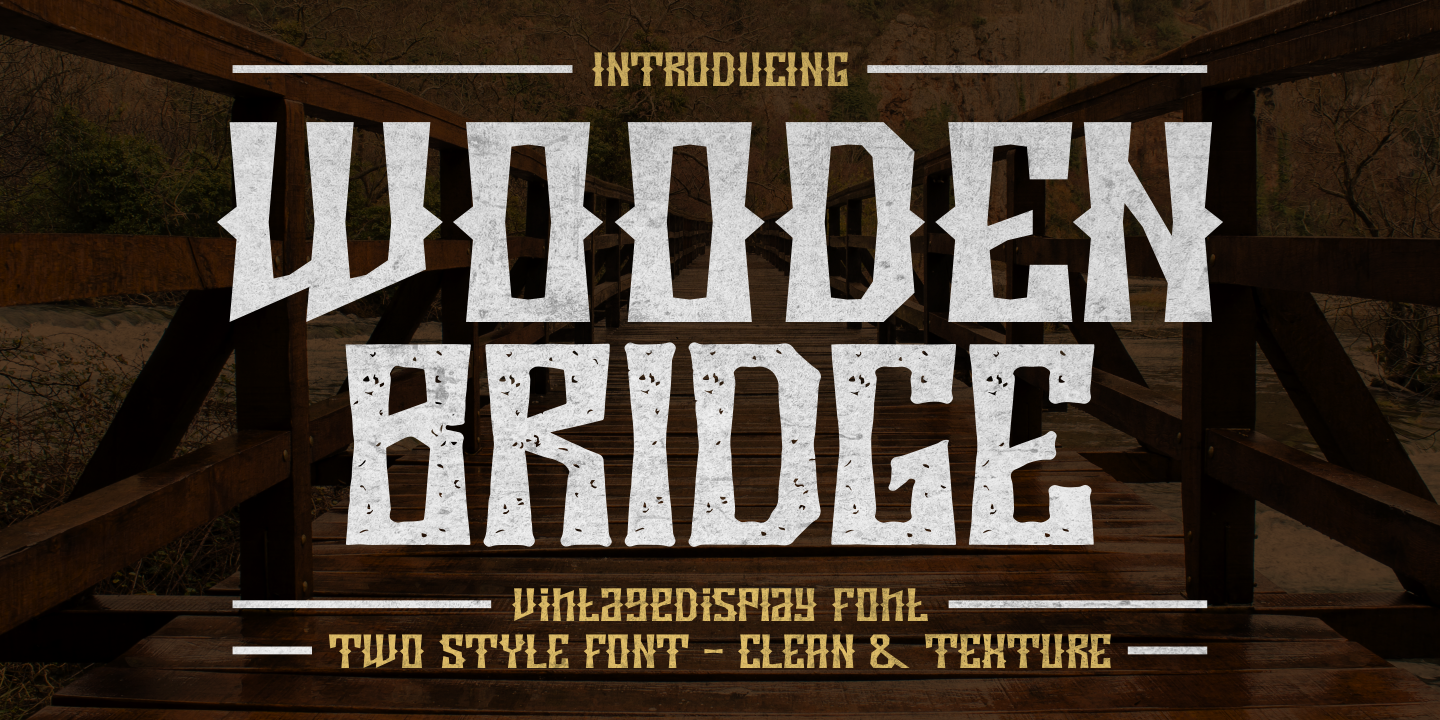
Wooden Bridge Font is perfect for rustic cabin resorts, wooden furniture craftsmen, covered bridge tourism, traditional carpentry businesses, forest park signage, log home builders, artisan woodworking shops, and countryside retreat branding. This natural typeface brings handcrafted warmth and rustic bridge engineering to any design project celebrating wooden construction, traditional craftsmanship, and the timeless beauty of structures that connect communities across natural landscapes.
What makes Wooden Bridge Font exciting is its authentic representation of wooden construction aesthetics combined with engineering reliability that perfectly captures the sturdy charm and community-connecting spirit of traditional covered bridges and wooden structures. The textured letterforms feature wood grain details and structural integrity that create an unmistakably rustic appearance. Each character bridges traditional craftsmanship with modern functionality, making it ideal for brands that celebrate woodworking heritage, natural building materials, and the enduring strength of time-tested construction methods.
The Wooden Bridge Font family typically includes regular and bold weights with complete uppercase and lowercase letters, numbers, punctuation marks, and carpentry symbols. Many versions feature additional wood-textured variations, construction motifs, and traditional building symbols that enhance the rustic aesthetic and provide creative flexibility for woodworking and construction design applications.
Whether you're developing traditional building brands or creating rustic tourism materials, Wooden Bridge Font Free Download offers unmatched craftsmanship authority and natural authenticity. This sturdy typography choice transforms ordinary text into rustic communications that resonate with audiences who appreciate traditional building methods and natural materials. The font's wooden construction ensures exceptional performance across artisan applications while maintaining its distinctive bridge-building character that makes every design project feel like a journey across a beautiful covered bridge where traditional craftsmanship spans generations.